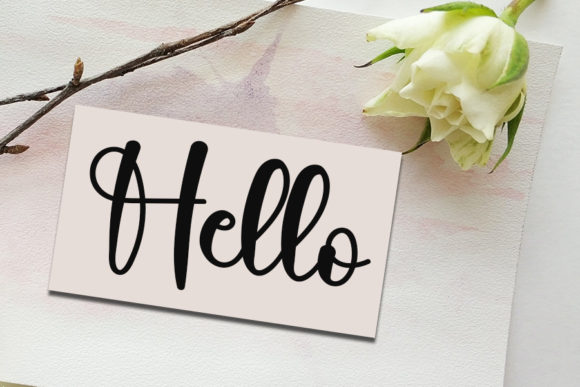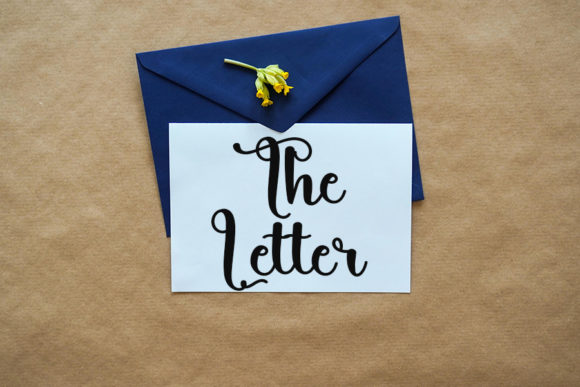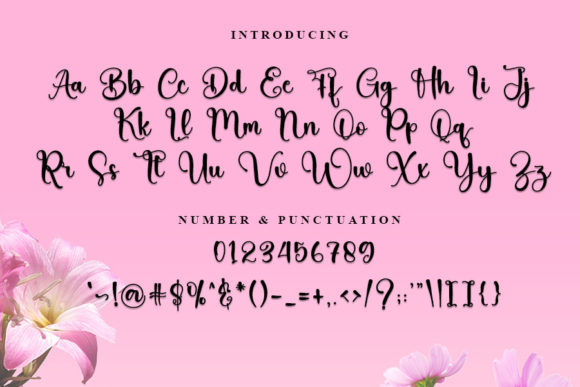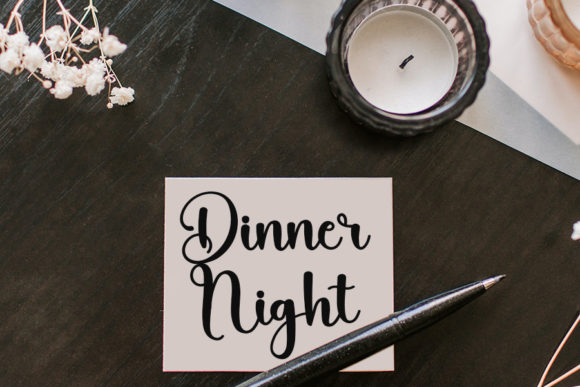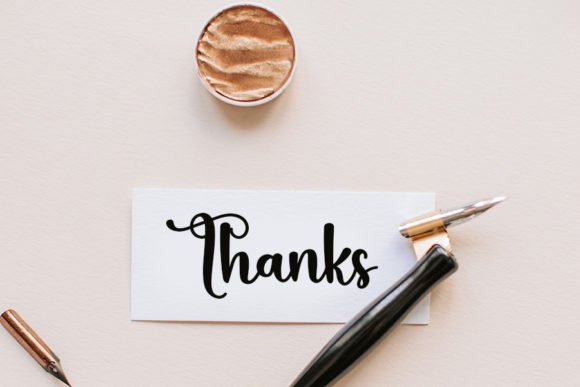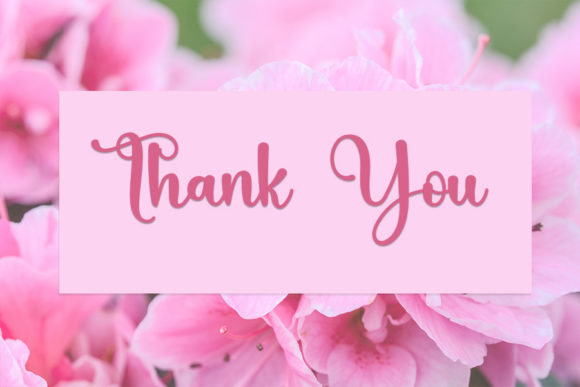
The Elusive Perfect Font: My Encounter with Blooms
As a designer, I’ve had my fair share of late nights scrolling through font libraries, searching for that one perfect typeface to elevate a project. I recall a particularly frustrating session where I was working on a wedding invitation suite, and my client requested a font that was both elegant and modern. After hours of sifting through options, I stumbled upon Blooms – a stylish handwritten font that instantly caught my eye. In this article, I’ll share my experience with Blooms, its features, and how to make the most of this beautiful font.
An Honest Review of Blooms
What I Love About Blooms ✨
• ✅ Timeless Classic Feel: Blooms is inspired by classic calligraphy, giving it a sophisticated and elegant vibe that’s hard to find in modern fonts.
• ✅ Balanced and Varied: The font offers a great balance of thick and thin strokes, making it perfect for a wide range of design projects, from wedding stationery to branding materials.
• ✅ Contemporary Atmosphere: Despite being inspired by traditional calligraphy, Blooms has a contemporary feel that makes it suitable for modern designs.
• ✅ Impeccable Form: The font’s attention to detail and well-crafted letterforms make it a joy to work with.
• ⚠️ Limited Use in Body Text: While Blooms is stunning in headings and titles, its elegant and cursive nature might make it less suitable for long body text.
• ⚠️ Some Ligatures May Not Display Correctly: As with many script fonts, some ligatures might not display correctly in all software or platforms, requiring manual adjustment.
The Story Behind Blooms
Blooms was designed with the intention of capturing the essence of timeless classic calligraphy while infusing it with a modern twist. The designer aimed to create a font that would be both elegant and versatile, suitable for a wide range of design projects. Inspired by the flowing lines and intricate details of traditional calligraphy, Blooms brings a touch of sophistication to any design.
Q: What type of projects is Blooms best suited for?
Blooms is perfect for designs that require an elegant, sophisticated touch, such as wedding stationery, luxury branding, and high-end events.
Q: Can I use Blooms for body text?
While Blooms is stunning in headings and titles, its elegant and cursive nature might make it less suitable for long body text. Consider pairing Blooms with a more traditional font for body text.
Q: Does Blooms support OpenType features?